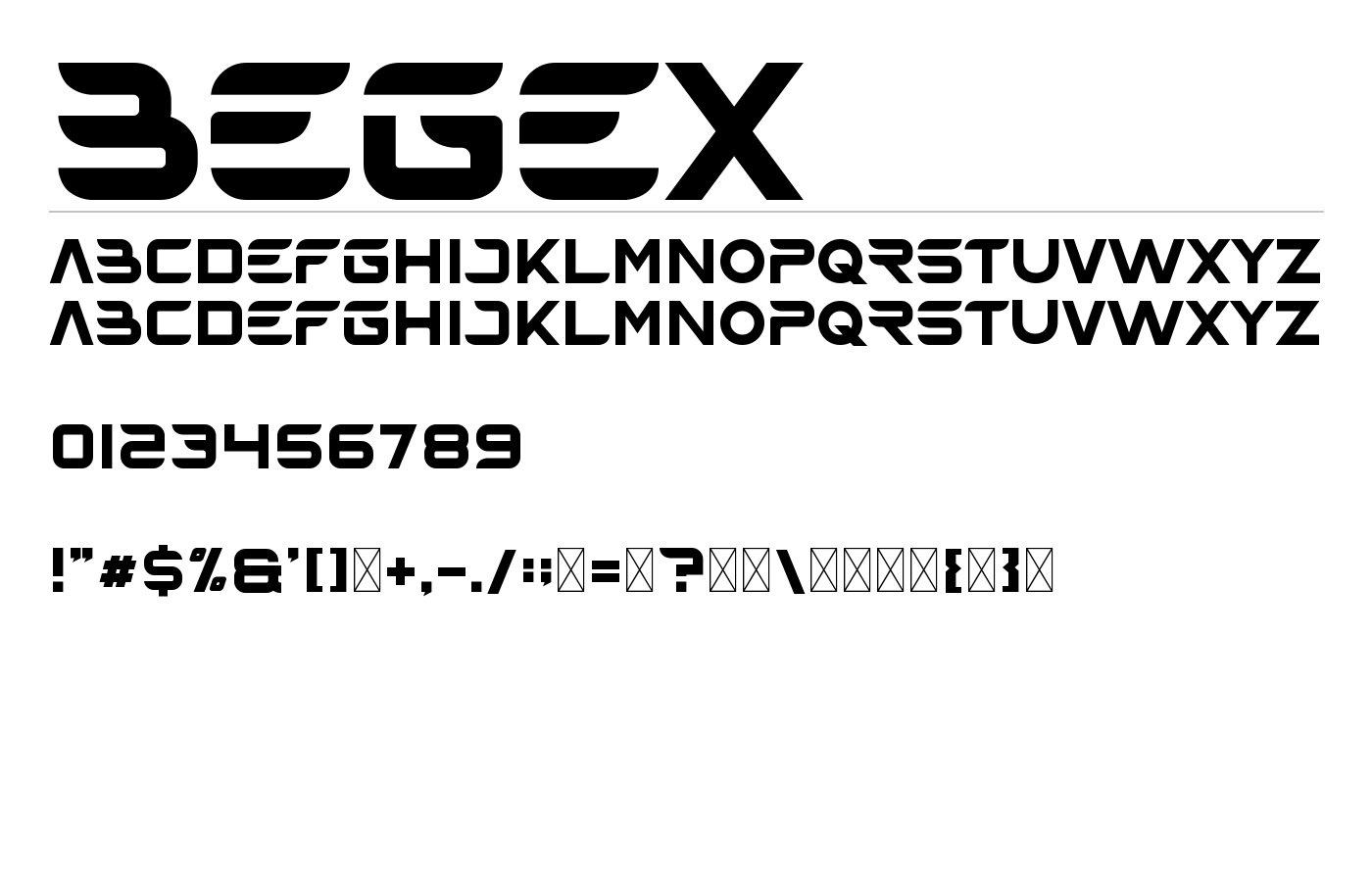
Begex is a bold, futuristic sans serif font with a strong geometric style and angular cuts that give it a tech-forward, modern feel. Its compact letterforms and high contrast strokes make it perfect for eye-catching headlines, logos, and branding that seek a dynamic, innovative edge. This font works best in digital and sci-fi themed designs where a sleek, contemporary impression is desired.
Begex Font
About Begex Font
| Font family | Begex Font |
| Designer | Ari Wibowo |